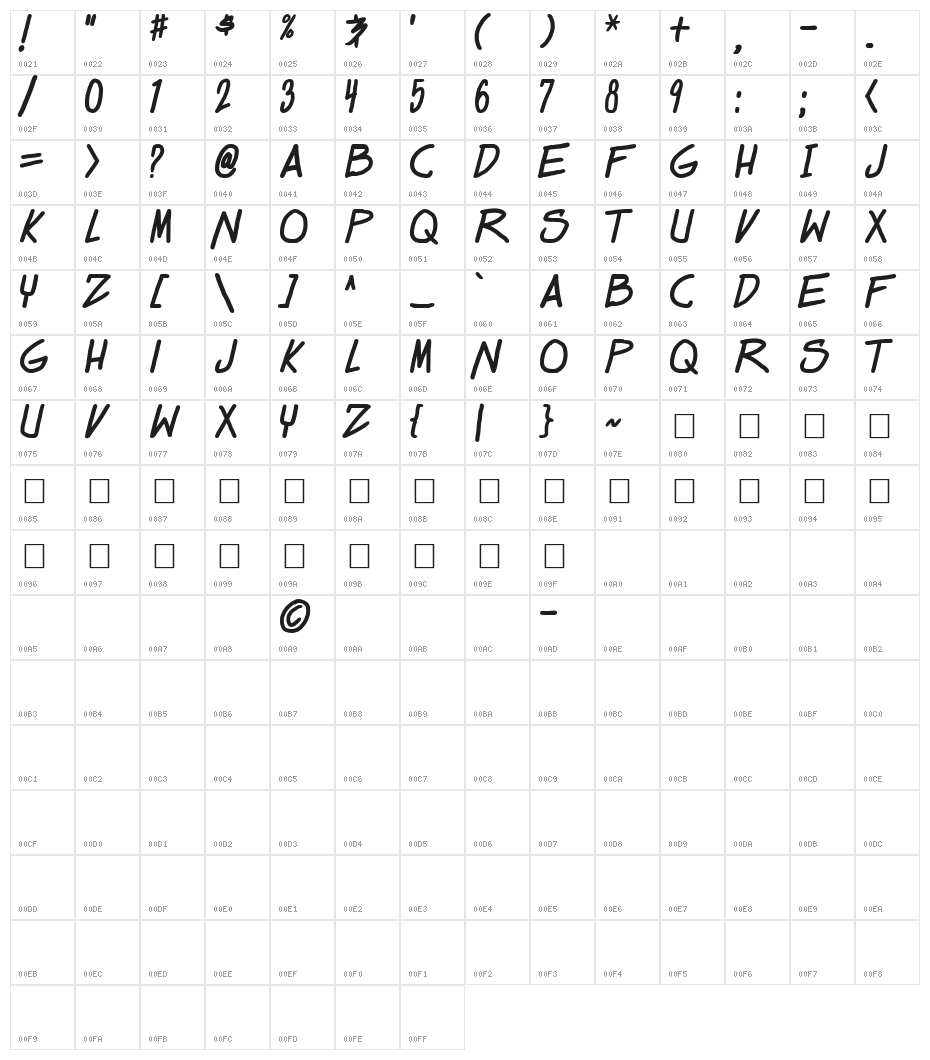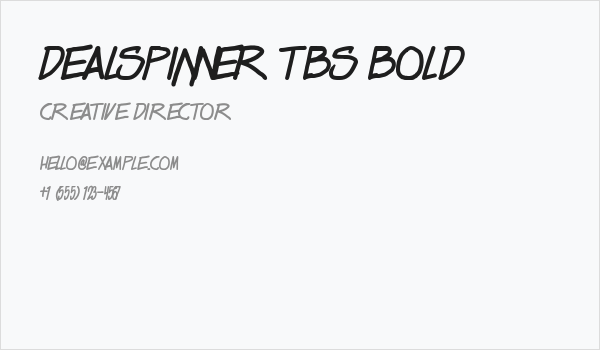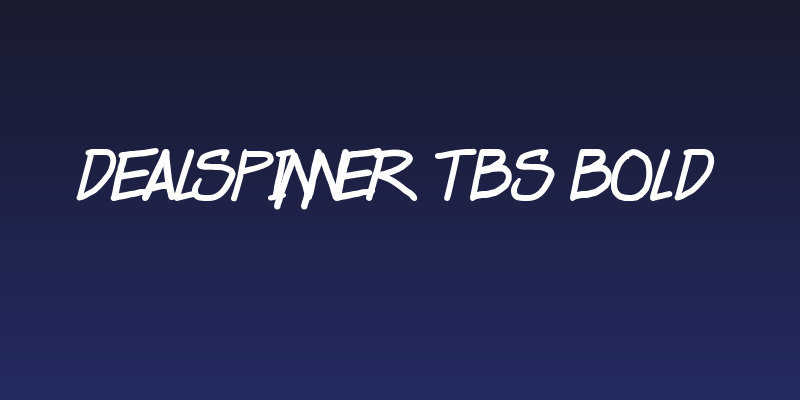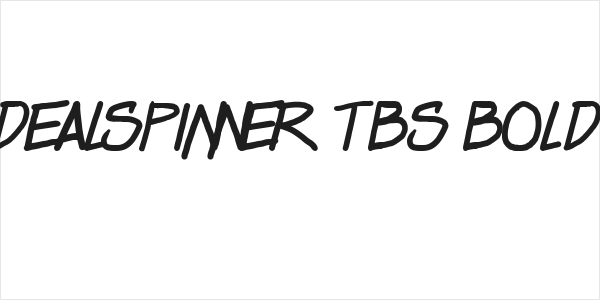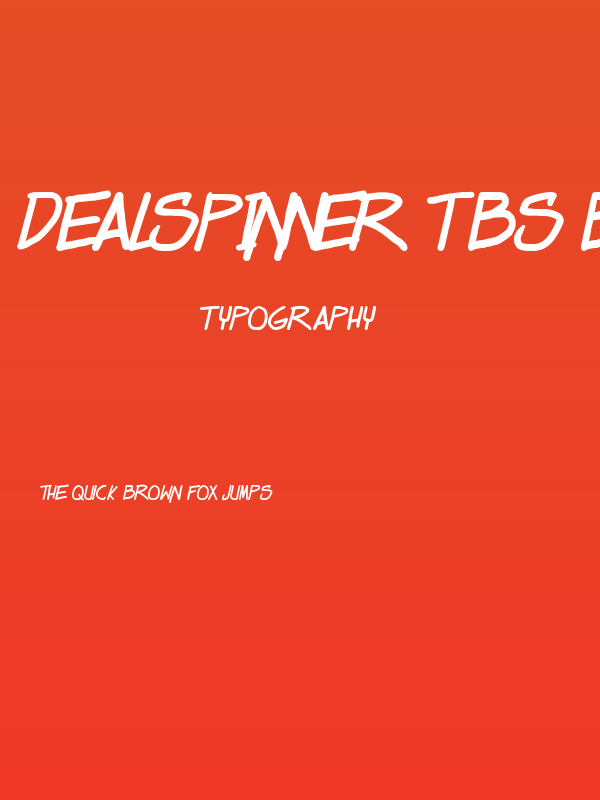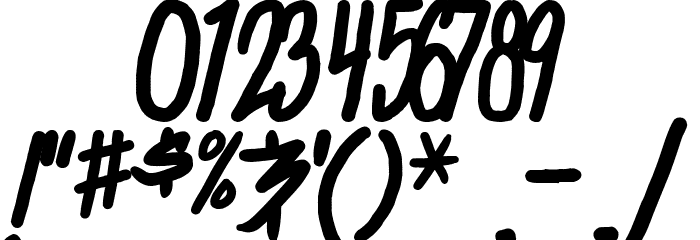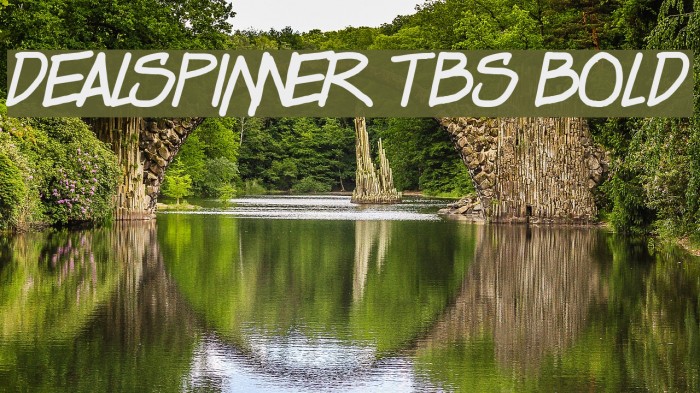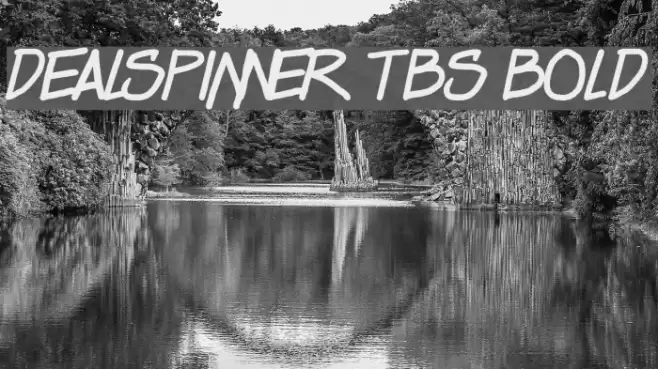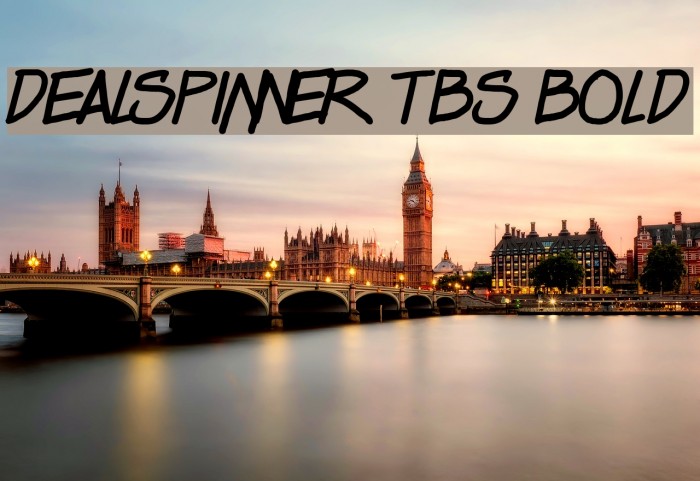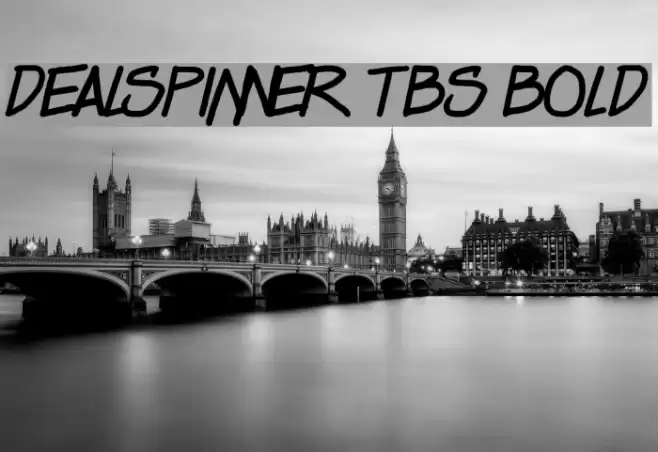
Dealspinner TBS Bold Font
Dealspinner TBS Bold Description
This font features a bold, handwritten style with a dynamic and energetic appearance. The letters are slightly slanted, giving a sense of motion and fluidity. The strokes are thick and consistent, providing a strong visual impact. The uppercase and lowercase letters maintain a cohesive look, while the numerals and special characters complement the overall design. The font's informal and lively nature makes it suitable for projects that require a personal touch or a casual vibe.
| Use Case | Logos, Headlines, Posters |
| Proposed Projects | Ideal for branding, posters, social media graphics, and any project that requires a personal or casual touch. |